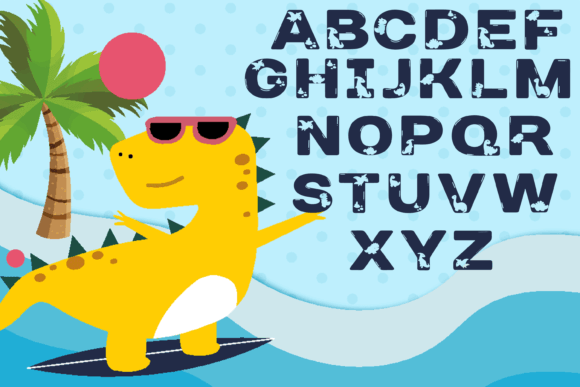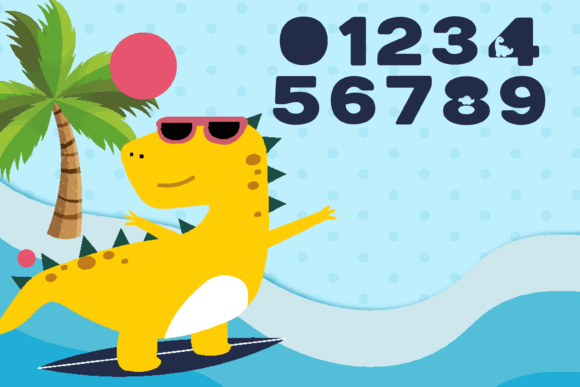
Dino World Font: Unleash Your Creativity with a Cute and Fun Decorative Font
Are you a designer, crafter, or DIY enthusiast looking for a font that embodies playfulness and authenticity? Look no further than the Dino World Font! This adorable decorative font is perfect for a wide range of projects, from blog posts and logos to branding, ads, invitations, greeting cards, planners, photo albums, decorations, and more.
What Makes Dino World Font So Special?
Dino World Font is a unique and charming font that is sure to capture the hearts of anyone who lays eyes on it. Its cute and fun design makes it perfect for projects that require a playful touch. Whether you’re creating a children’s book, a craft tutorial, or a social media post, this font is sure to add a dash of personality and whimsy to your design.
One of the best things about Dino World Font is its versatility. It’s a font that can be used for both personal and commercial projects, making it a great addition to any designer’s toolkit. Whether you’re a seasoned pro or just starting out, this font is easy to use and can be adapted to suit a wide range of styles and themes.
So, what can you use Dino World Font for? The possibilities are endless! Here are just a few ideas to get you started:
- Blog Posts: Add a playful touch to your blog posts with Dino World Font. Use it to create eye-catching headings, titles, and captions that will make your content stand out.
- Logos and Branding: Create a memorable logo or brand identity with Dino World Font. Its unique design makes it perfect for businesses that want to stand out from the crowd.
- Ads and Marketing Materials: Use Dino World Font to create eye-catching ads, flyers, and brochures that will grab the attention of your target audience.
- Invitations and Greeting Cards: Create personalized invitations and greeting cards with Dino World Font. Its playful design makes it perfect for special occasions like birthdays, weddings, and holidays.
- Planners and Organizers: Add a touch of personality to your planners and organizers with Dino World Font. Use it to create custom headings, titles, and labels that will make your planners stand out.
- Photo Albums and Scrapbooking: Use Dino World Font to create beautiful photo albums and scrapbook pages. Its cute and fun design makes it perfect for preserving memories.
- Decorations: Create custom decorations like garlands, banners, and signs with Dino World Font. Its playful design makes it perfect for parties, events, and special occasions.
Why Designers and Crafters Love Dino World Font
So, why do designers and crafters love Dino World Font? Here are just a few reasons:
- Easy to Use: Dino World Font is easy to use, even for those who are new to design. Its simple and intuitive design makes it easy to get started.
- Customizable: Dino World Font is highly customizable. You can adjust the size, color, and style to suit your needs.
- Unique Design: Dino World Font has a unique design that sets it apart from other fonts. Its cute and fun design makes it perfect for projects that require a playful touch.
- Versatile: Dino World Font is versatile and can be used for a wide range of projects, from personal to commercial.
In conclusion, Dino World Font is a cute and fun decorative font that is perfect for designers, crafters, and DIY enthusiasts. Its playful design makes it perfect for a wide range of projects, from blog posts and logos to branding, ads, invitations, greeting cards, planners, photo albums, decorations, and more. With its ease of use, customizability, unique design, and versatility, Dino World Font is a great addition to any designer’s toolkit.